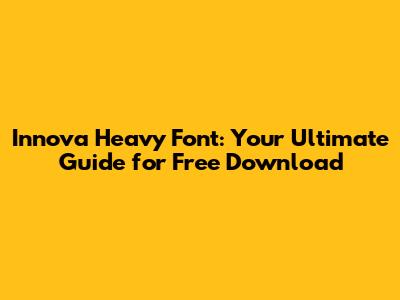
Hey guys! Are you on the hunt for a striking, bold font that can make your designs pop? Look no further than the Innova Heavy Font! It's a fantastic choice for headlines, logos, posters, and anything else where you need a strong visual impact. And guess what? You can get an innova heavy font free download! In this article, we'll dive deep into everything you need to know about this awesome font, how to get it, and how to use it to its full potential. So, buckle up, because we're about to embark on a font-tastic journey!
What Makes Innova Heavy Font So Special?
Alright, let's talk about why the Innova Heavy Font is such a popular choice. First and foremost, it's all about its heavyweight design. This font is designed to grab attention. It's not the subtle kind; it's the kind that screams, “Look at me!” This makes it perfect for titles, headings, and any text that needs to stand out from the crowd. Think about billboards, website headers, or even the titles of your YouTube videos – the Innova Heavy Font is a champion in these scenarios. Its thickness and boldness ensure that your message is seen and understood, even from a distance. The font also often comes with a clean and modern aesthetic, making it incredibly versatile. Whether you're working on a project that requires a contemporary feel or something a bit more classic, Innova Heavy Font can often fit the bill. It's like having a superhero in your font library, ready to save the day when you need to make a powerful statement.
Another key feature of Innova Heavy Font is its excellent readability. Despite its thickness, the font is typically designed to be very legible. This means that even though the letters are heavy and bold, they are still easily recognizable and distinguishable. This is crucial for any design, because what good is a bold font if no one can read it? Innova Heavy Font strikes the perfect balance between impact and readability, ensuring that your audience can effortlessly understand your message. And the font's versatility extends to various design projects. You can use it for print materials, such as posters, brochures, and flyers, as well as for digital designs like social media graphics, website banners, and app interfaces. The possibilities are truly endless! Its adaptability makes it a valuable asset for designers of all kinds. The font's consistent style helps ensure that your designs look professional and polished, no matter where they're displayed. It's a secret weapon to have in your font arsenal. So, if you're looking for a font that's bold, readable, and versatile, the Innova Heavy Font is definitely worth considering. Now, let's get you set up with your very own innova heavy font free download!